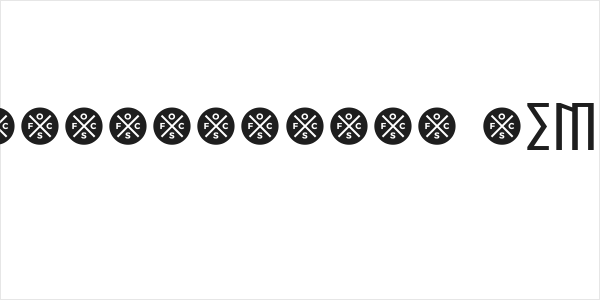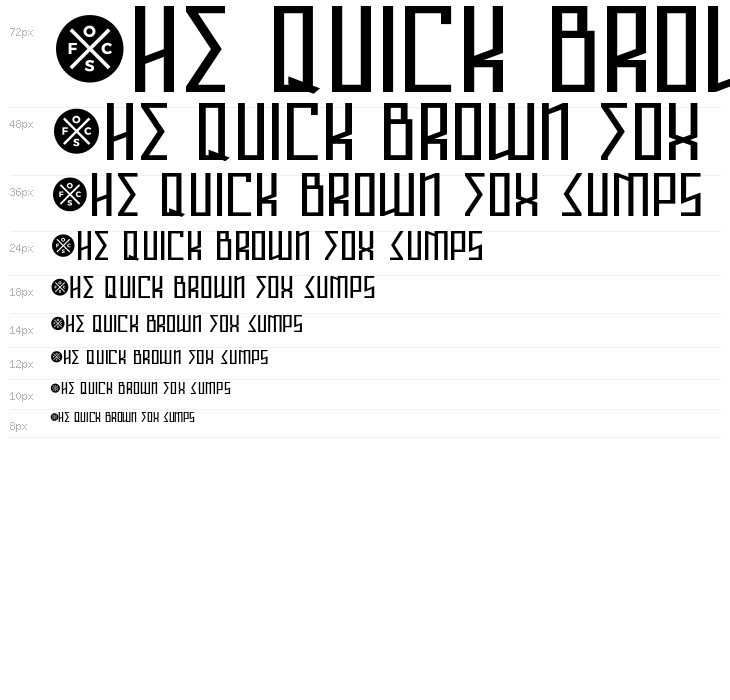
ANNIHILATOR Demo Font
ANNIHILATOR Demo Description
This font features a bold, geometric design with sharp angles and a futuristic aesthetic. The uppercase letters are distinct with a mix of straight lines and angular cuts, creating a dynamic and edgy look. The characters are evenly spaced, providing a balanced appearance. The style is reminiscent of sci-fi and tech themes, making it suitable for projects that require a modern and innovative touch. The absence of lowercase letters and numbers suggests a focus on impactful headlines or titles. The font's unique structure makes it stand out, ideal for creative and bold design projects.
| Proposed Projects | Ideal for sci-fi themed posters, tech branding, video game titles, and futuristic event flyers. |